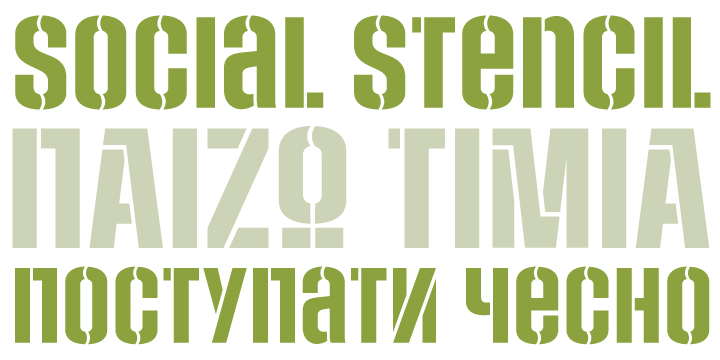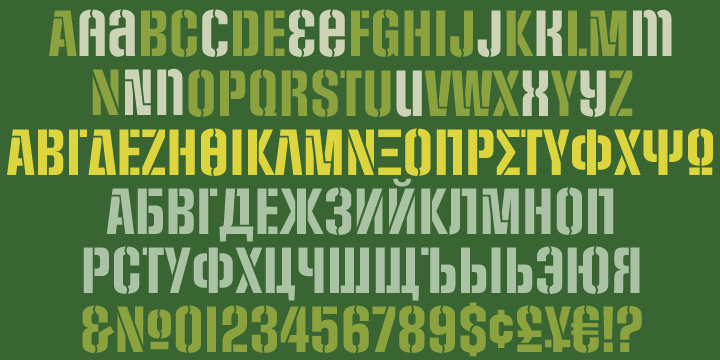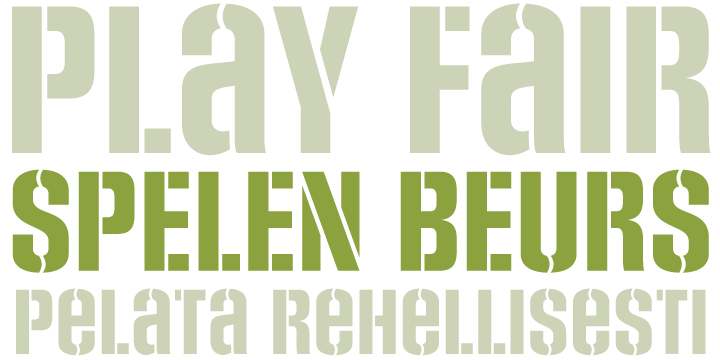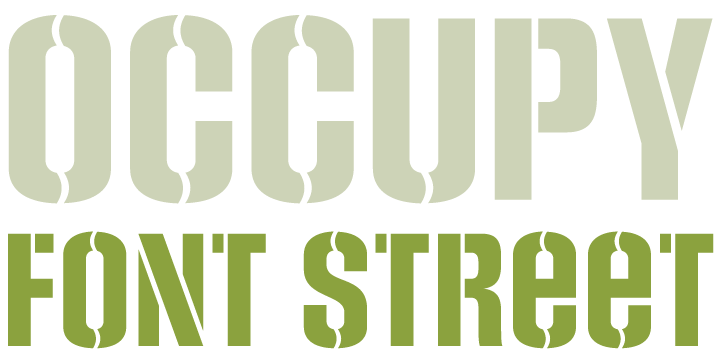
Social Stencil is a stencil font published by Canada Type.
This is the stencil cousin of our enormously popular unicase font, Social Gothic.
The stencilling is a unique treatment unlike familiar stencil acts, with round cuts through curves and straight ones through straight strokes. This treatment works well with the biform construct of the face by emphasizing its clean outlines and enhancing its minor humanist totality.
Social Stencil is a multi-scipt font that contains support for most Latin-based lanugages, as well as Cyrillic and Greek. It also comes with plenty of built-in alternates.